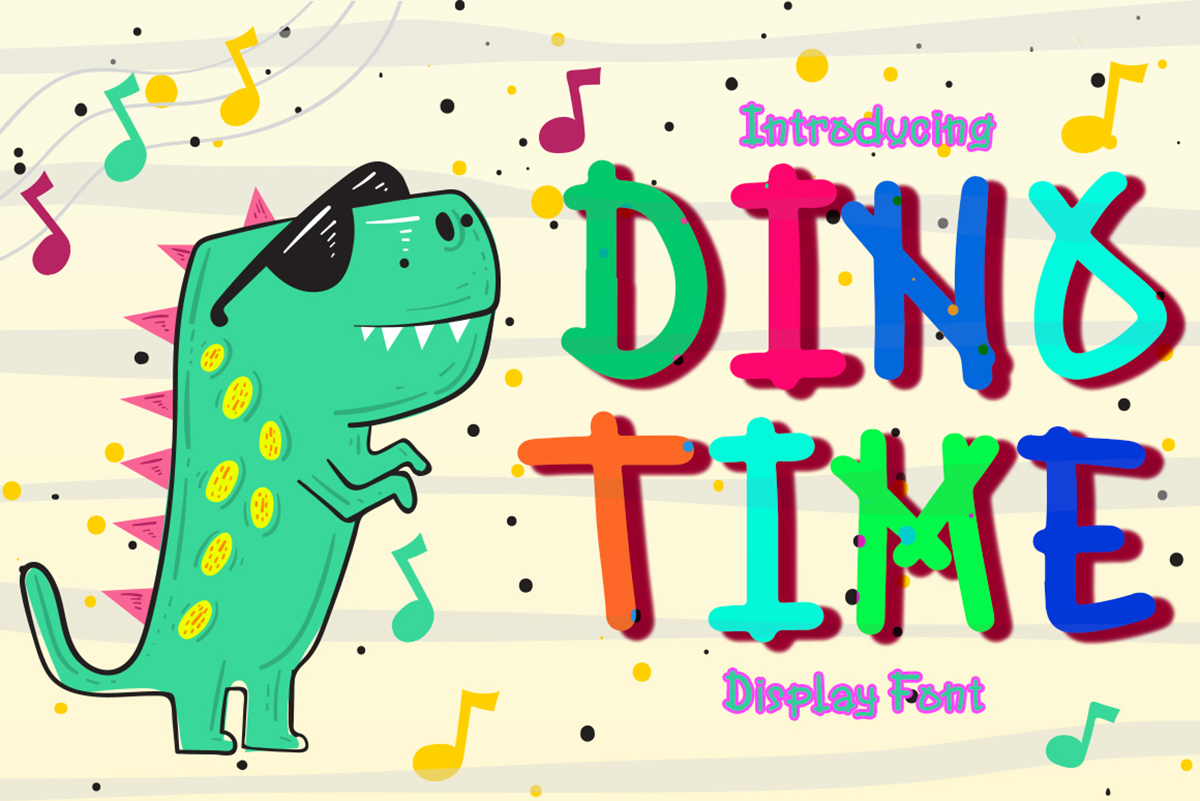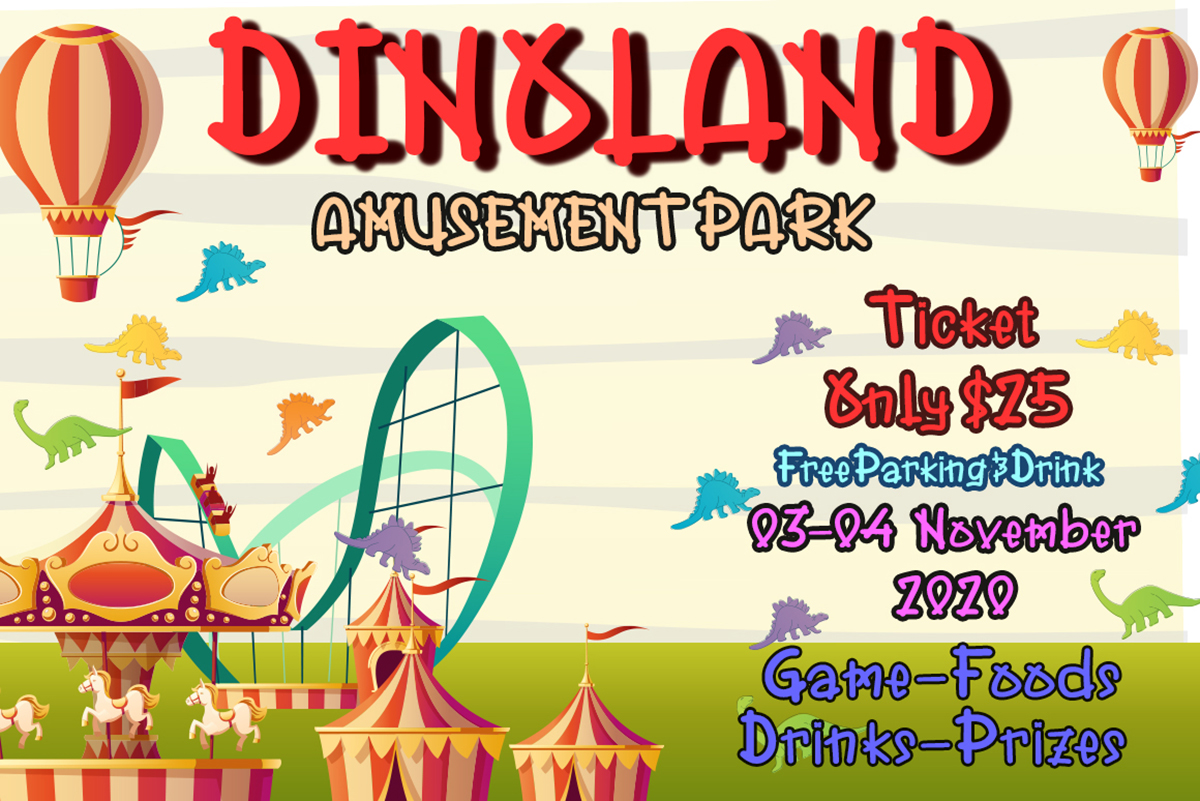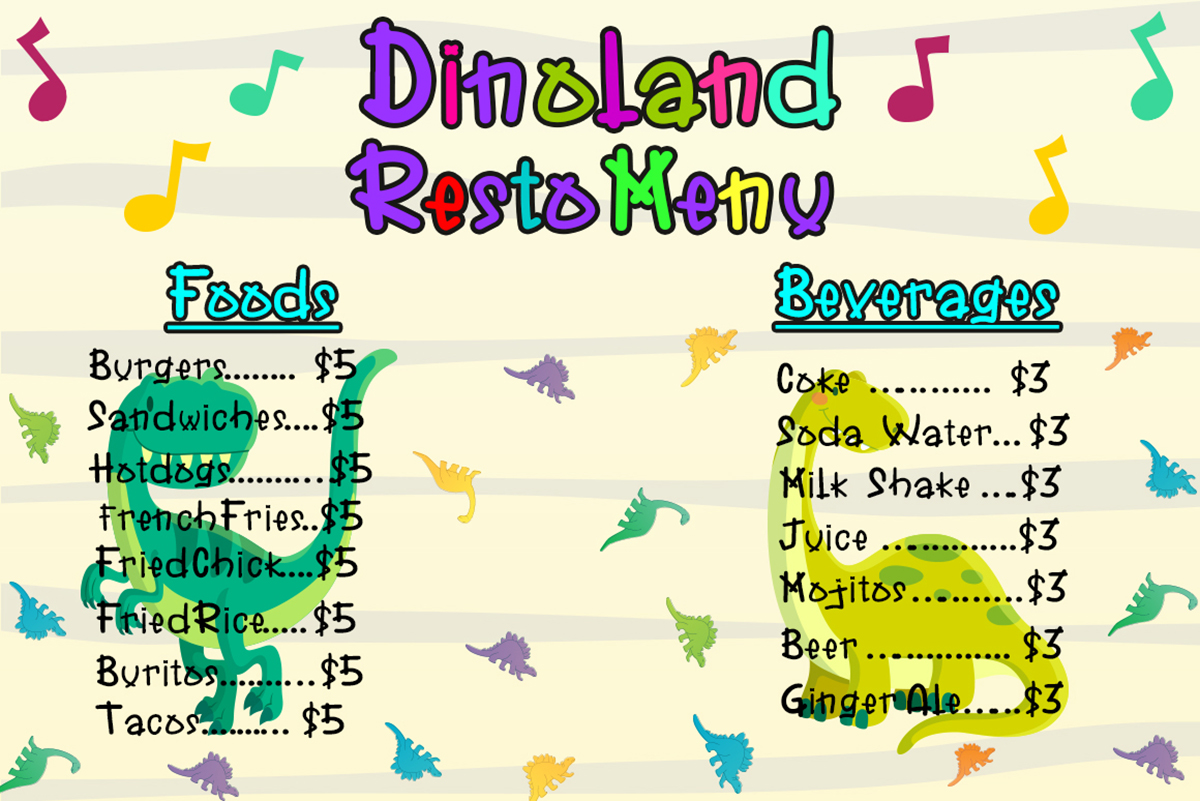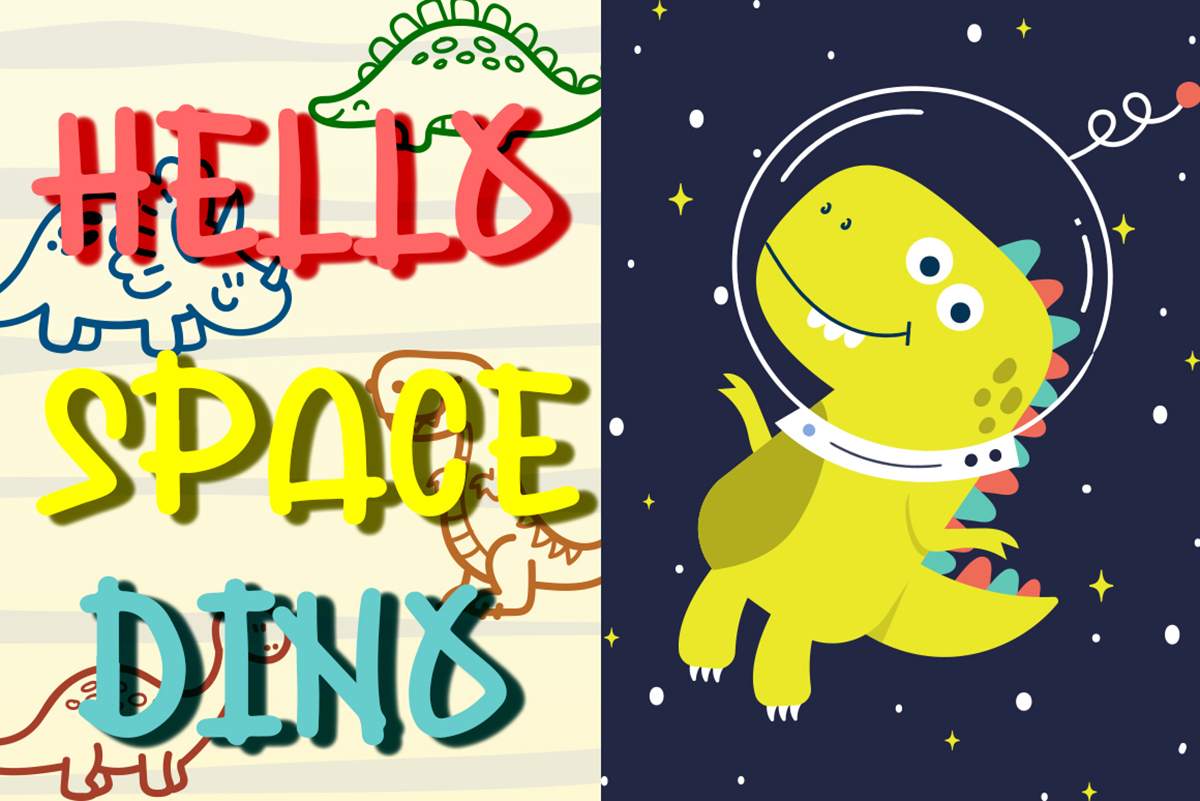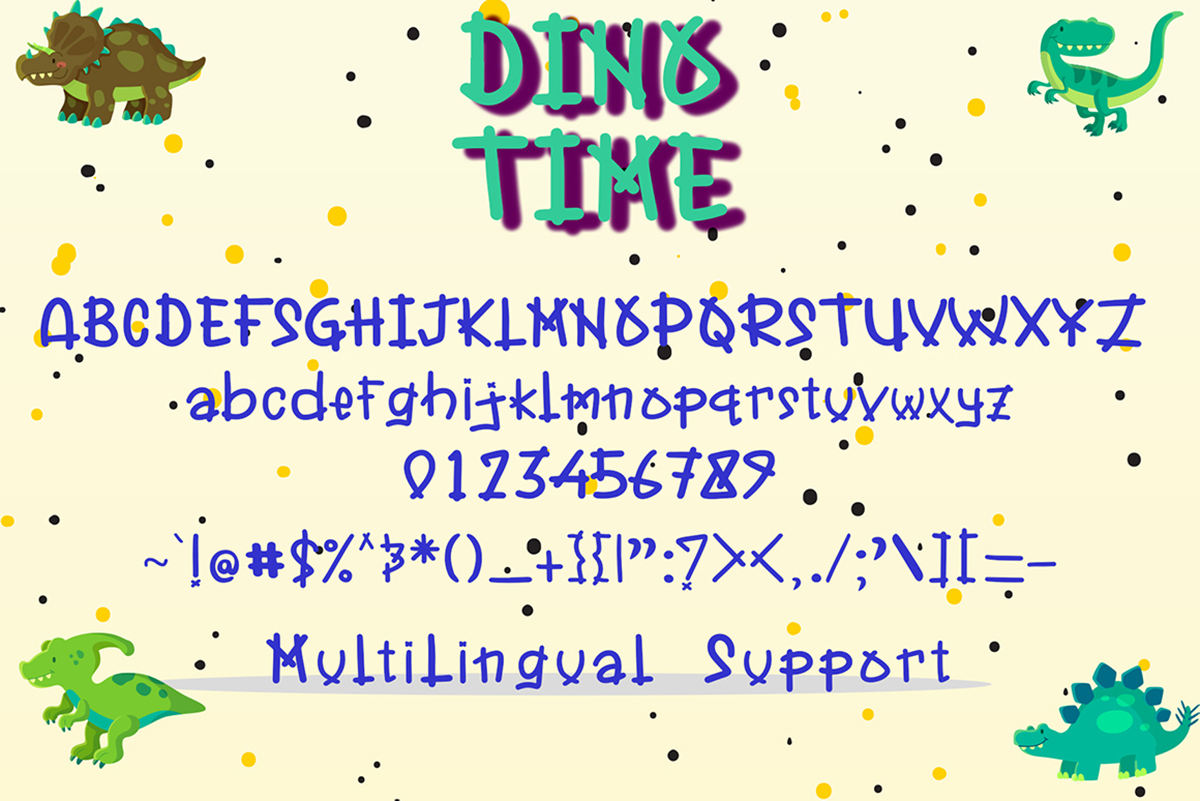
Dino Time Free Font
Dino Time Free Font is a cute and colorful display font. It embodies playfulness and authenticity and is the perfect choice for any children’s activity or school project. Add this chunky lettered font to your designs and notice how it makes them come alive. This free typeface was designed by the talented Booga Letter Studio. If you like it don’t forget to check out the full version.